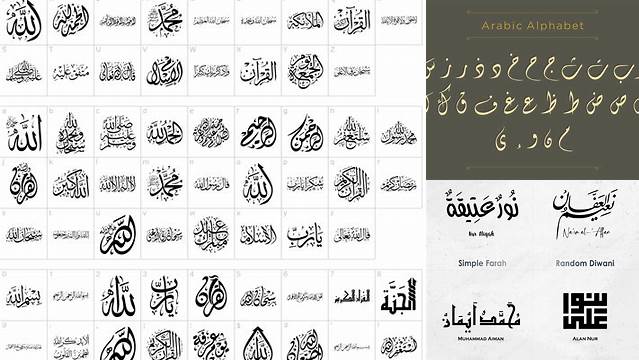
Arabic Symbol Calligraphy Font: Let's dive into the beautiful world of Arabic calligraphy, specifically focusing on how you can snag some amazing free fonts. This isn't just about finding fonts; it's about unlocking a whole new realm of creative expression. Arabic calligraphy, with its flowing strokes and intricate designs, is more than just writing; it's an art form. And the best part? You can access a wide array of these beautiful fonts without spending a dime! Whether you're a seasoned graphic designer, a budding artist, or just someone who appreciates the elegance of Arabic script, this guide is for you. We'll explore where to find these free fonts, how to install them, and even some creative ideas on how to use them in your projects. Get ready to unleash your inner artist and add a touch of cultural flair to your designs! This guide will be your go-to resource for all things related to free Arabic calligraphy fonts. Prepare to be inspired!
1. Introduction to Arabic Calligraphy: A Visual Feast
Arabic Symbol Calligraphy Font is a unique form of art, rooted deeply in the history and culture of the Arab world. It's not just about writing; it's a visual representation of words, a dance of strokes and curves that can be as expressive and beautiful as any painting or sculpture. The beauty of Arabic calligraphy lies in its versatility. It can be bold and dramatic, delicate and flowing, or intricate and ornate. The art form has evolved over centuries, with different styles developing in various regions and time periods. Each style has its own characteristics, its own rules, and its own aesthetic. This creates a rich and diverse tapestry of visual language that can be used to express a wide range of emotions and ideas. The tools of the calligrapher are simple: a reed pen (qalam), ink, and paper. But the skill lies in the hand, in the ability to control the flow of ink, the angle of the pen, and the pressure applied to the paper. The results are stunning: works of art that can be appreciated for their beauty as well as their meaning. When we talk about Arabic Symbol Calligraphy Font, we must realize that understanding its historical and cultural significance helps us appreciate the art form fully. It's not just about the aesthetics; it's about the stories, the traditions, and the beliefs that are encoded in the script. That's why, when you're looking for a free font, consider exploring the history of the script you're using. So, guys, get ready to explore the world of Arabic Calligraphy Fonts! It's going to be a blast.
6. Exploring Different Arabic Calligraphy Styles: A Font Sampler
Arabic Symbol Calligraphy Font comes in a variety of styles, each with its unique characteristics and historical background. Understanding these styles can help you choose the right font for your project. Here are some of the most popular styles: First, the Naskh style, one of the most widely used and versatile styles. It's known for its clear and readable letterforms, making it ideal for body text. Next, the Thuluth style, known for its elegance and complexity. It's characterized by its elongated vertical strokes and decorative elements, often used for titles, headings, and religious texts. Then, the Kufic style, the oldest and most formal style. It's characterized by its angular, geometric letterforms, and is often used for architectural inscriptions and decorative purposes. There's the Ruq'ah style, a fast-flowing style known for its simplicity and legibility. It's often used for handwritten notes and everyday documents. Lastly, the Diwani style, a highly ornate style, characterized by its flowing curves and elaborate flourishes. It's often used for official documents and certificates. Other styles include Farsi/Persian, Maghrebi, and more modern interpretations. When selecting an Arabic Symbol Calligraphy Font, consider the context and purpose of your project. Choose a style that complements your design and effectively communicates your message. You'll be able to choose the most suitable style to use! So, explore more.
7. Creative Project Ideas: Using Arabic Calligraphy Fonts
Arabic Symbol Calligraphy Font can be a fantastic tool for a variety of creative projects. It adds a touch of elegance, cultural richness, and visual interest that can elevate your designs. Here are some creative project ideas: First, Logos and Branding: Arabic calligraphy fonts are ideal for creating unique and memorable logos for businesses, especially those with a connection to the Middle East or Islamic culture. Next, Posters and Flyers: Use Arabic calligraphy fonts to create eye-catching posters and flyers for events, cultural festivals, or promotional campaigns. Website Design: Incorporate Arabic calligraphy fonts into your website design to add a touch of sophistication and cultural flair. Social Media Graphics: Use Arabic calligraphy fonts to create stunning graphics for social media posts, quotes, or announcements. Greeting Cards and Invitations: Design unique greeting cards and invitations with beautiful Arabic calligraphy fonts. T-Shirt Designs: Create custom t-shirt designs with Arabic calligraphy quotes, phrases, or artwork. Wall Art and Prints: Create beautiful wall art and prints featuring Arabic calligraphy. Combine them with other design elements to create a visually stunning piece of art. The possibilities are endless! With creativity and imagination, you can use Arabic Symbol Calligraphy Font to bring your ideas to life and create designs that are both beautiful and meaningful. Ready to start creating?
8. Designing with Arabic Calligraphy Fonts: Tips and Best Practices
Arabic Symbol Calligraphy Font should be used thoughtfully to create visually appealing and effective designs. Here are some tips and best practices: Choose the right font: Select a font that complements your project's purpose and target audience. Consider the font's style, readability, and cultural context. The next thing is, Maintain Readability: Even the most beautiful calligraphy fonts can be difficult to read if not used properly. Ensure the text is legible by choosing a suitable font size, using enough contrast, and avoiding overly complex designs. Consider the Context: Arabic calligraphy fonts often carry cultural significance. Be mindful of the context and avoid using fonts that may be perceived as disrespectful or inappropriate. Experiment with Spacing and Kerning: Adjust the spacing between letters (kerning) and lines to improve readability and visual appeal. Play around to find what works best for your design. Pair with Other Fonts: Combine Arabic calligraphy fonts with other fonts to create a balanced and harmonious design. Use a simple, readable font for body text, and reserve the calligraphy font for headlines or decorative elements. Use Color Effectively: Choose colors that complement the font and enhance the overall design. Consider the cultural associations of different colors and their impact on the message. Remember to keep these in mind to ensure you use Arabic Symbol Calligraphy Font correctly.
30. The Emotional Impact: Using Arabic Calligraphy Fonts to Evoke Feelings
Arabic Symbol Calligraphy Font can trigger emotions. Here's how to use them effectively: Choose the Right Style: Select the right font style. Different styles can evoke different emotions. For example, an elegant font can convey sophistication. Color Choice: Use colors to enhance the emotions. Warm colors can evoke feelings of joy and excitement. Cool colors can evoke feelings of peace and calm. Context is Key: Make sure that you choose the right context. Use the font to convey the emotions. By implementing Arabic Symbol Calligraphy Font correctly, you can make it part of the emotional expression. It helps to make your designs more impactful.